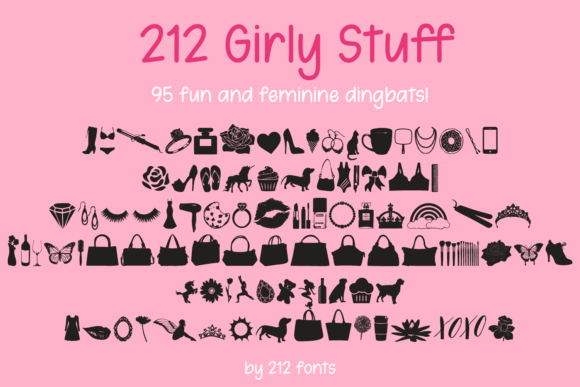
The Magical World of 212 Girly Stuff Font
I’ll never forget the moment I stumbled upon the 212 Girly Stuff font. I was working on a project for a client who wanted a whimsical and feminine touch, but I was struggling to find the right font to bring their vision to life. That’s when I discovered 212 Girly Stuff, and it was like a breath of fresh air! ✨ The unique dingbats font instantly added a playful and creative spin to my design, and I knew I had found the perfect fit.
- ✨ Unique and quirky design that’s perfect for adding a touch of personality to your projects
- ✅ Extensive range of glyphs and symbols to choose from
- 🌸 Beautifully crafted to add a feminine touch to your designs
While 212 Girly Stuff is an amazing font, there are a few things to keep in mind: 🤔
- ⚠️ Some characters may not work well in certain design platforms or software, so be sure to test them out before finalizing your design
- ⚠️ The font may not be suitable for body text or long-form content, as it’s primarily designed for use as a display font or for adding decorative elements
The Backstory Behind 212 Girly Stuff
The 212 Girly Stuff font was designed with the intention of creating a unique and playful font that would add a touch of femininity to any design. The designer, Unknown, drew inspiration from a variety of sources, including vintage typography and modern calligraphy. The result is a font that’s both beautiful and functional, with a wide range of glyphs and symbols to choose from.
Q: What type of projects is 212 Girly Stuff best suited for?
A: 212 Girly Stuff is perfect for a variety of projects, including branding, packaging, and digital designs. It’s especially great for projects that require a touch of femininity and whimsy.
Q: Is 212 Girly Stuff easy to read?
A: 212 Girly Stuff is primarily designed as a display font, so it’s not recommended for use in body text or long-form content. However, it’s still easy to read at larger sizes and can be used to add a decorative touch to your designs.